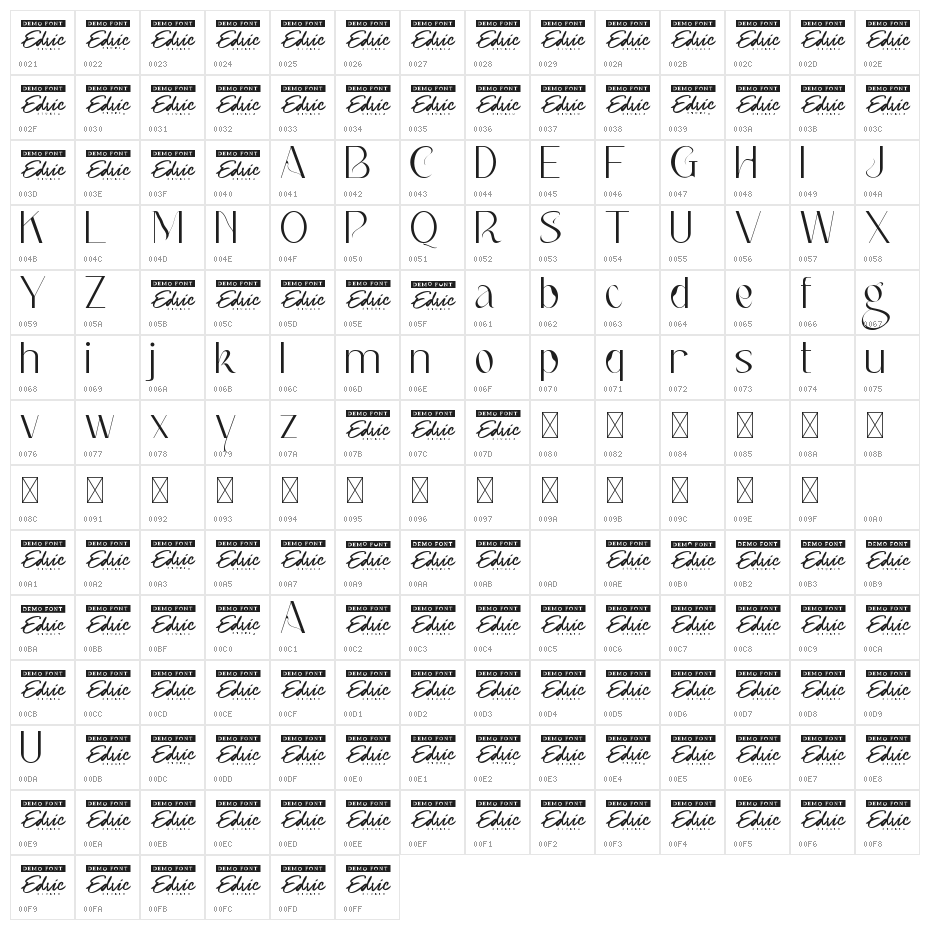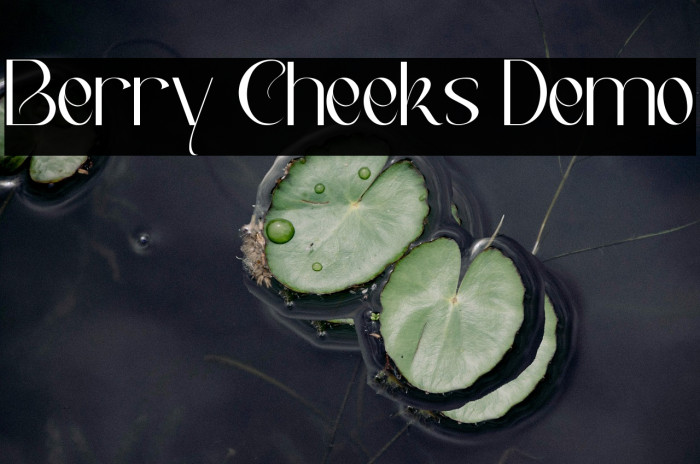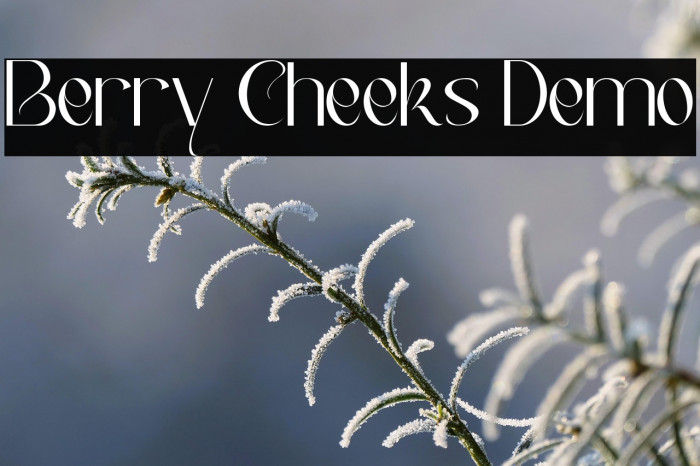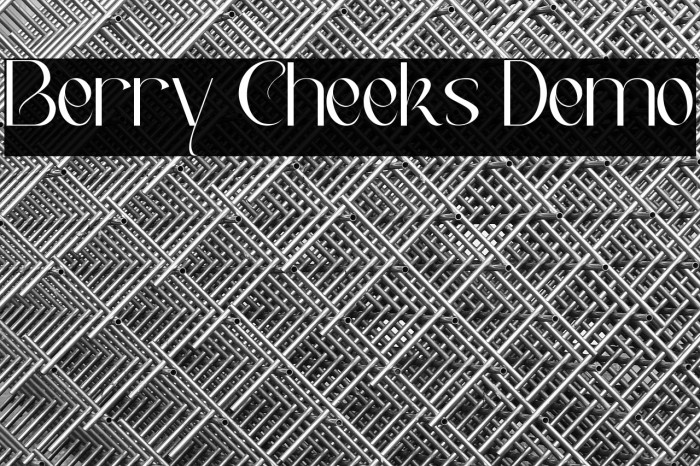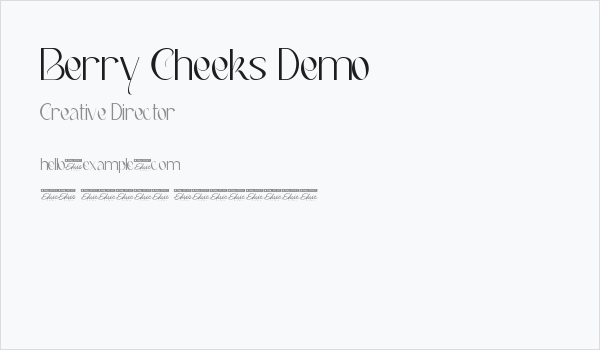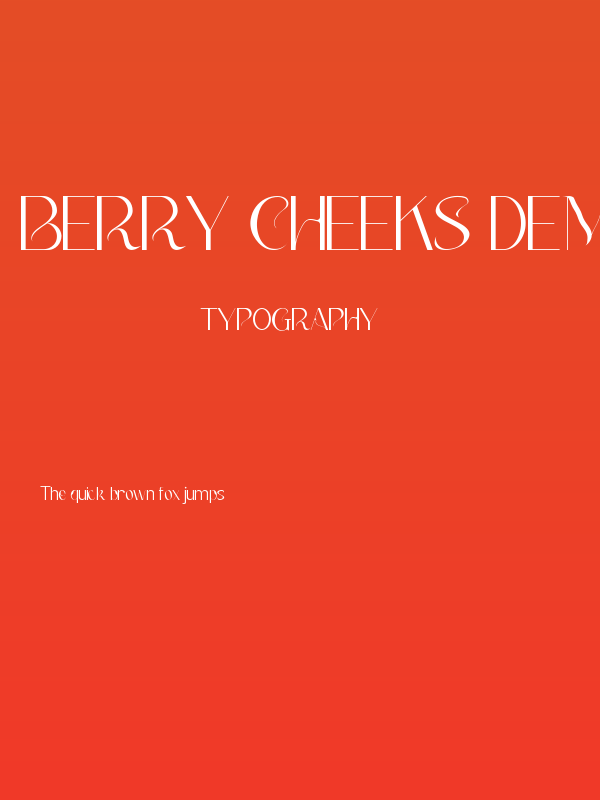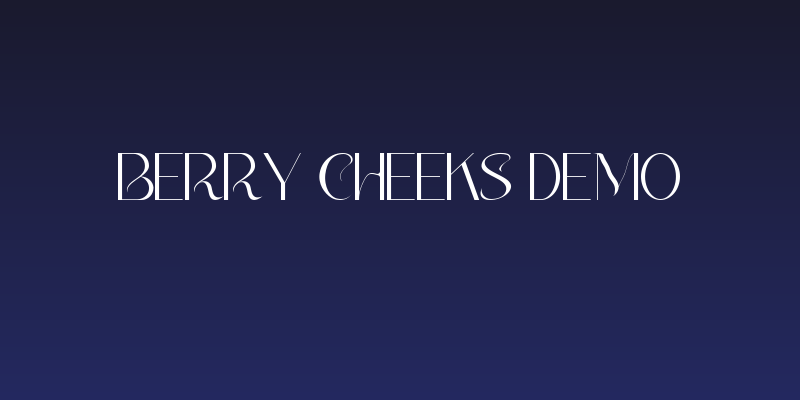
Berry Cheeks Demo Font
Berry Cheeks Demo Description
This font exhibits a unique blend of modern and classic elements, characterized by its elegant and flowing letterforms. The uppercase letters are tall and slender, with a distinct contrast between thick and thin strokes, giving it a sophisticated and stylish appearance. The lowercase letters maintain a similar aesthetic, with smooth curves and a graceful flow. The font's overall design is both decorative and functional, making it suitable for a variety of creative applications. The special characters add an extra touch of flair, enhancing its versatility.
| Overall Style | Elegant and Decorative |
| Proposed Projects | Ideal for branding, fashion magazines, wedding invitations, and luxury product packaging. |